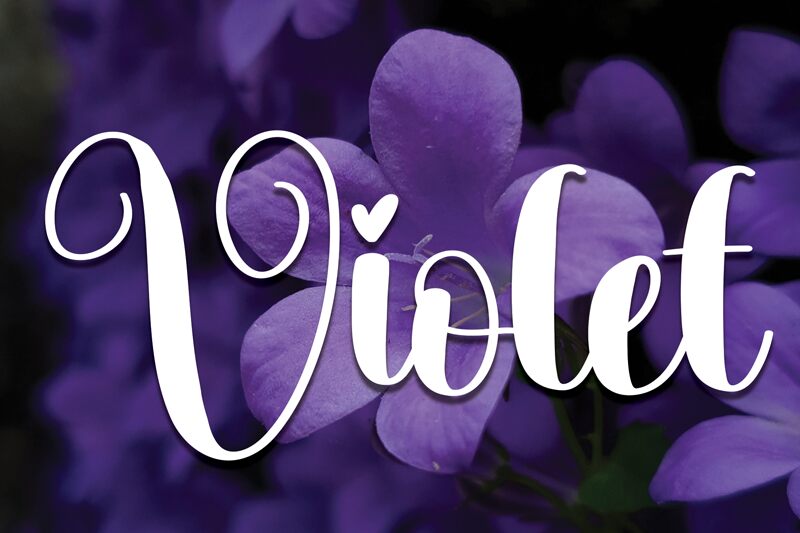
Violet, designed by Scratchones, is a semi-light font that combines the smooth brush and calligraphy styles. This popular and professional script font offers a modern and elegant look, with beautiful creative strokes that make it perfect for both formal and informal projects.
Whether you need to create invitation cards, letterheads, website logos, social media graphics, banners, advertisements, brochures, or packaging products, Violet will add a luxurious touch to your designs. Its versatility extends even further – from leather products to any item that requires writing. With a complete set of upper and lowercase letters, numbers, punctuation marks, and ligatures available in various file formats (OTF, .TTF., .SVG., .WOFF), this font provides endless possibilities for your creative ideas.
The latest style letters are perfect for wall displays, wedding invitations, social media post logos, advertisements, product packaging, product designs, labels, photography, watermarks, invitations, stationery, and any project that requires taste handwriting.
Violet